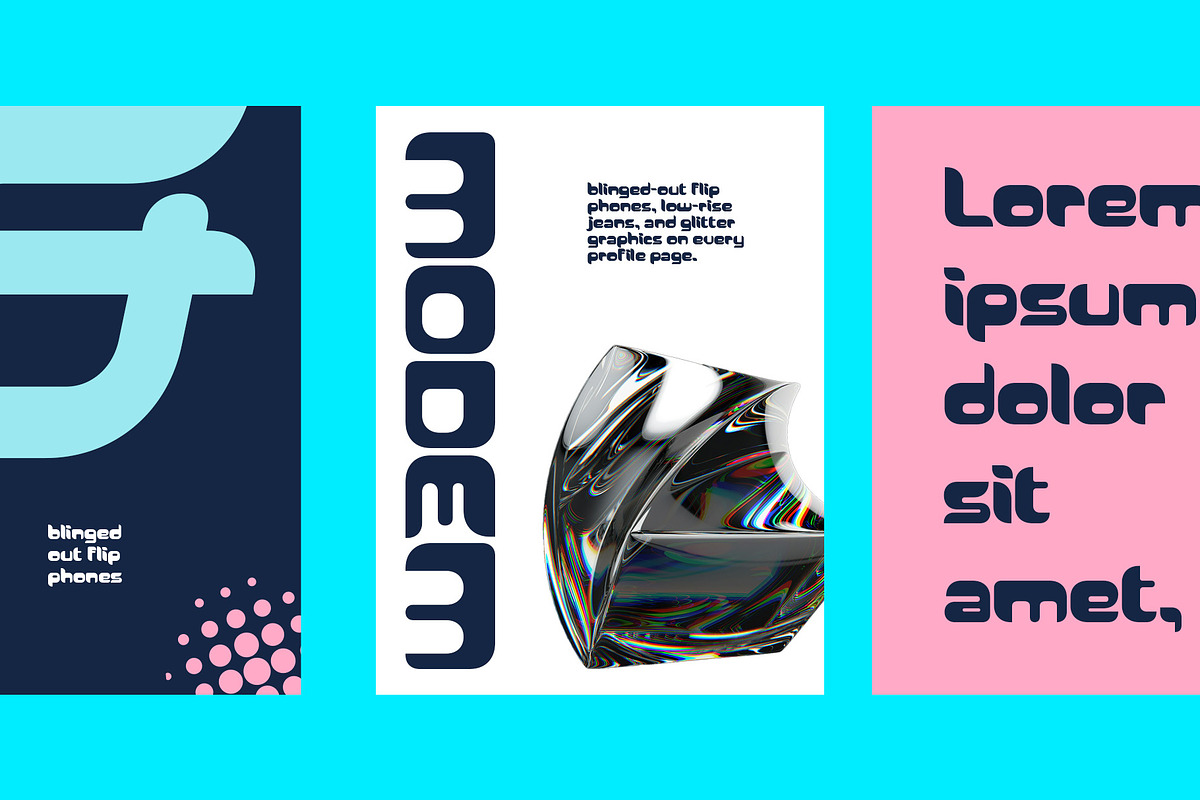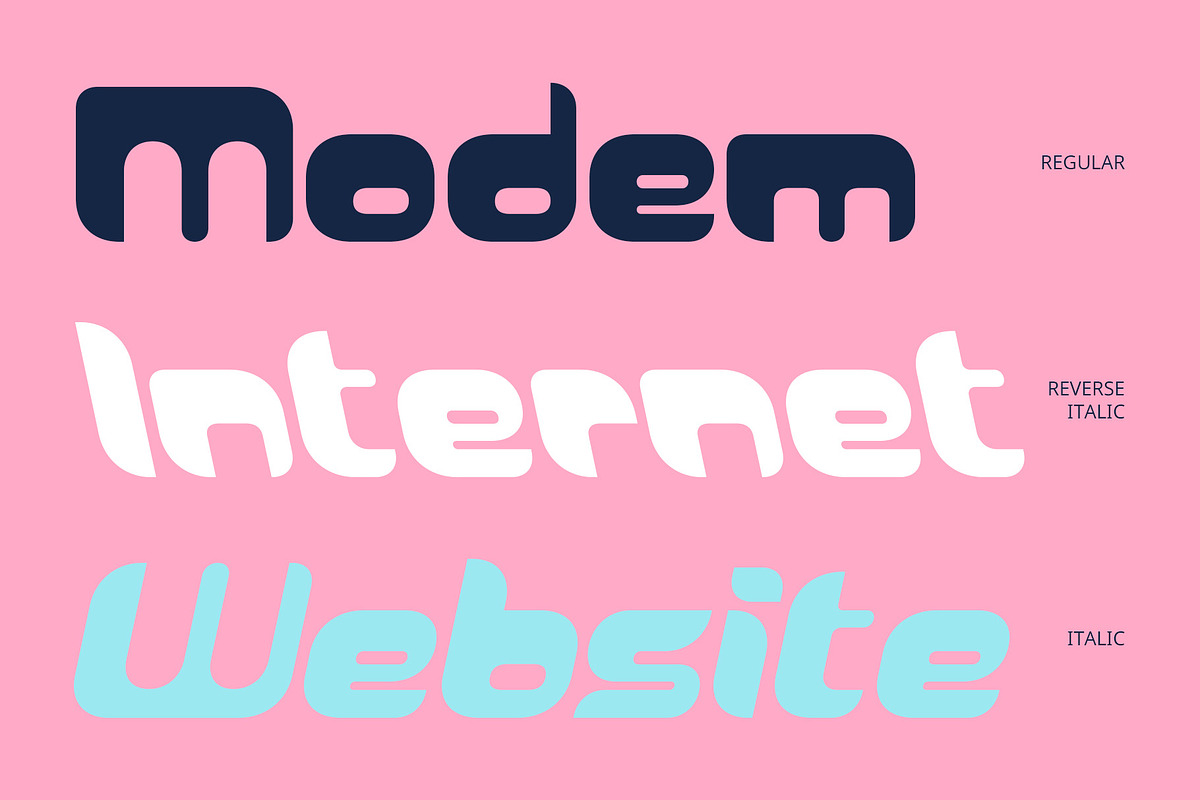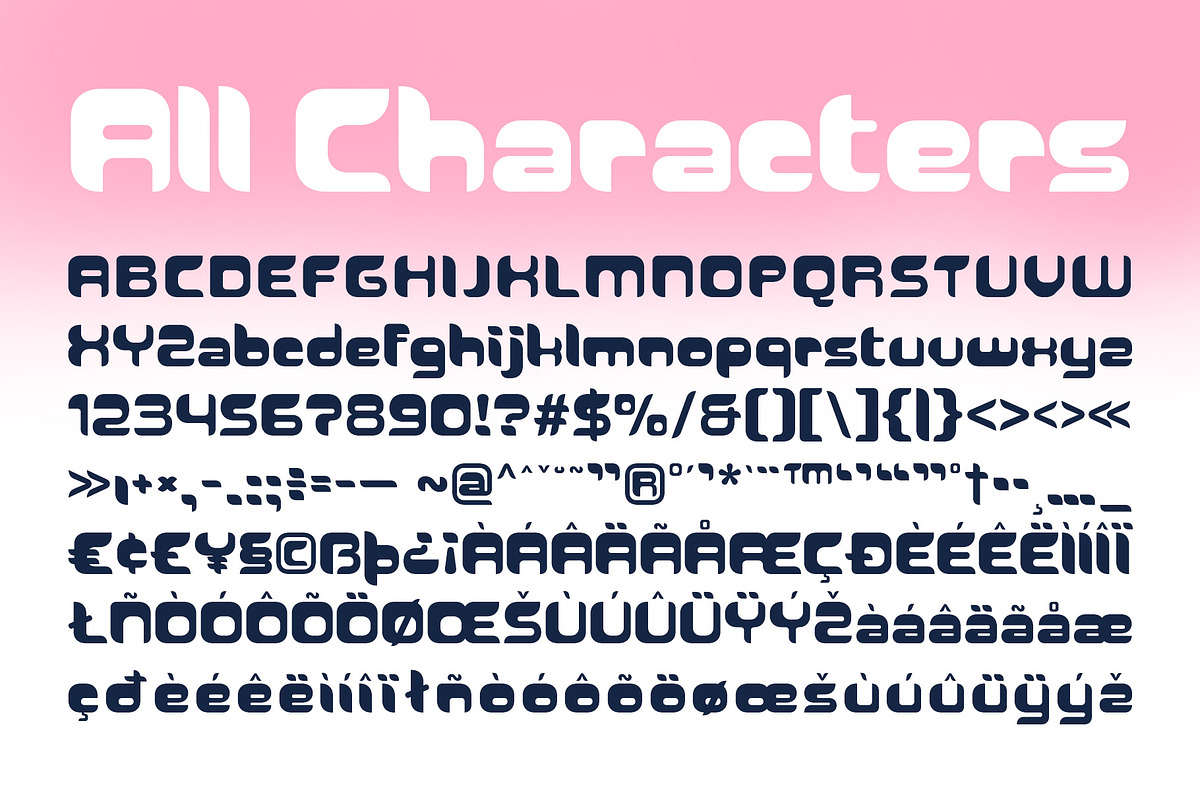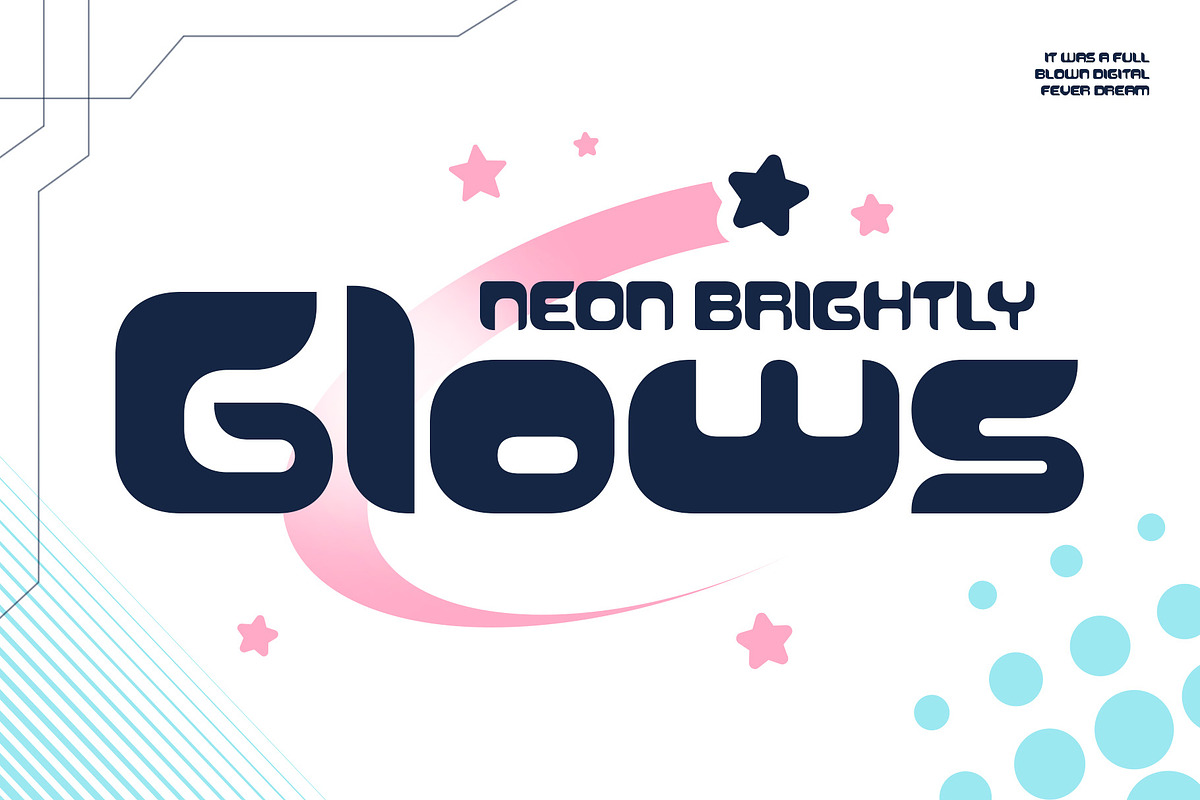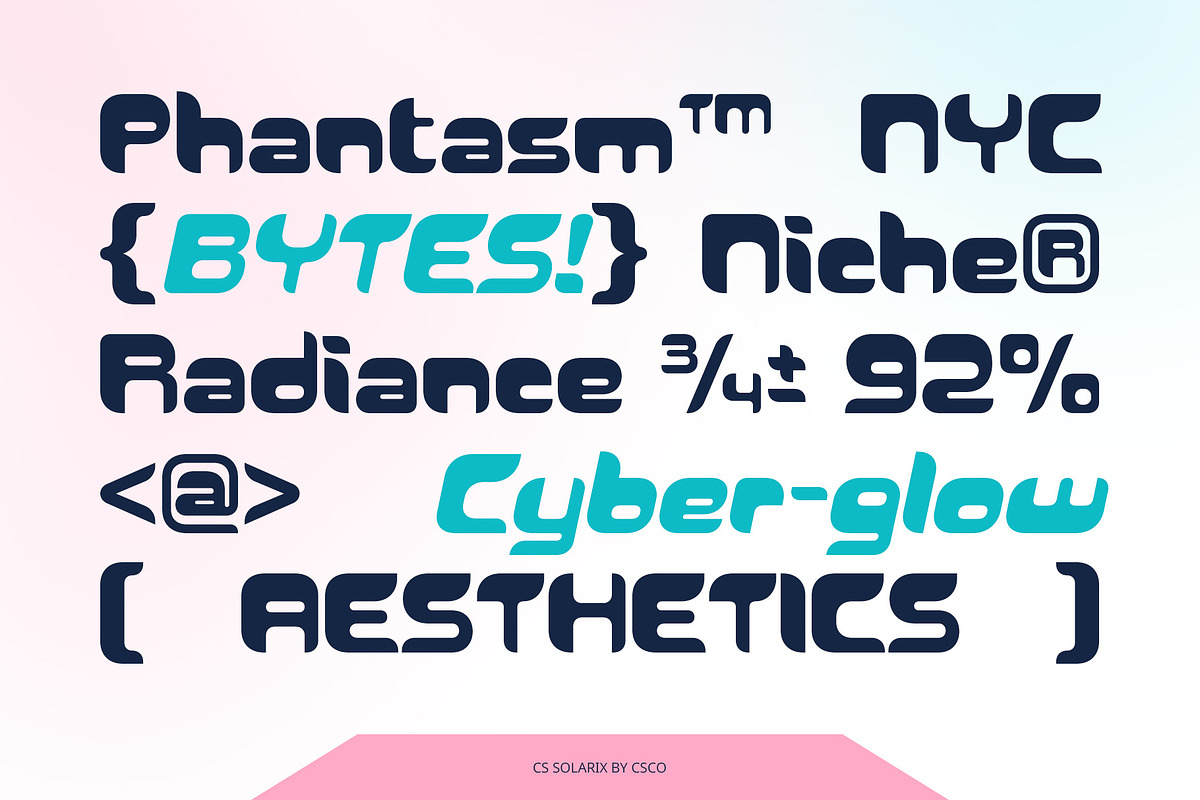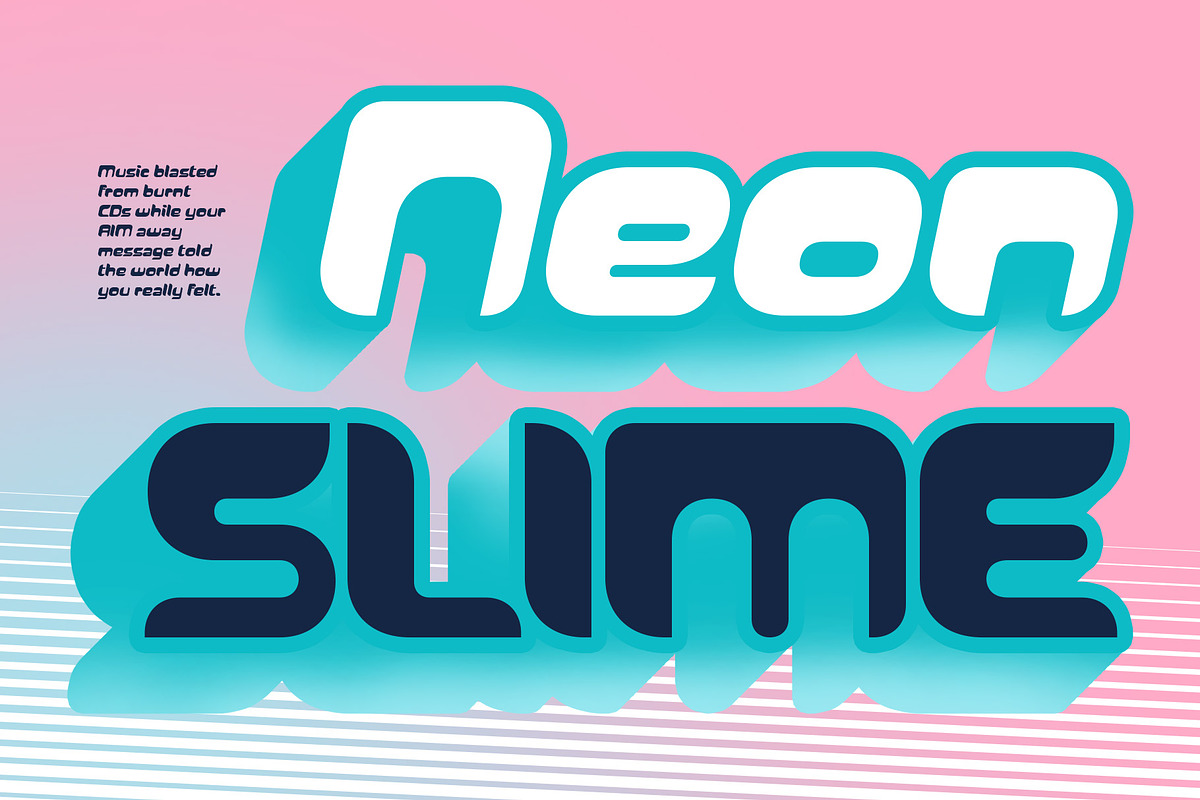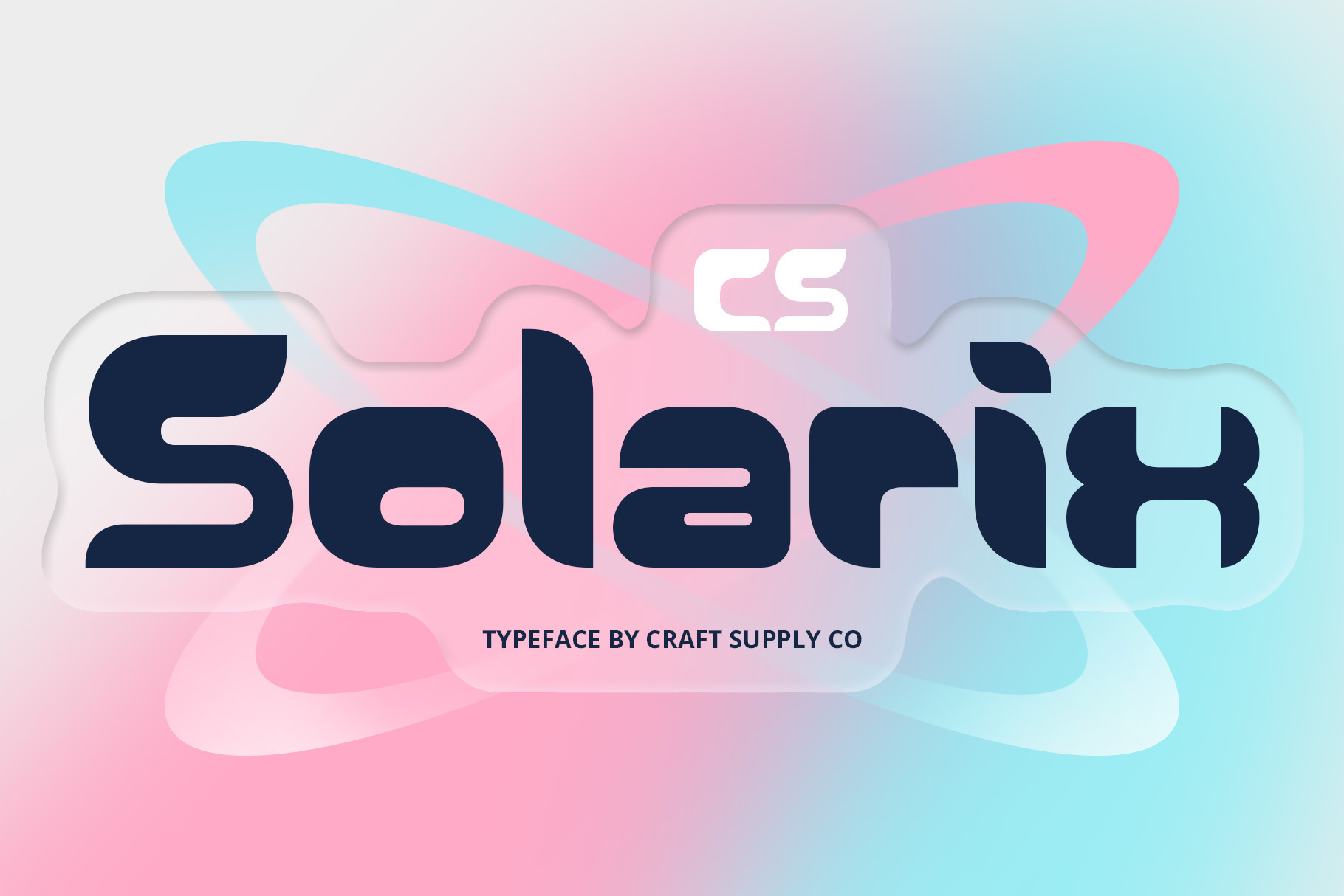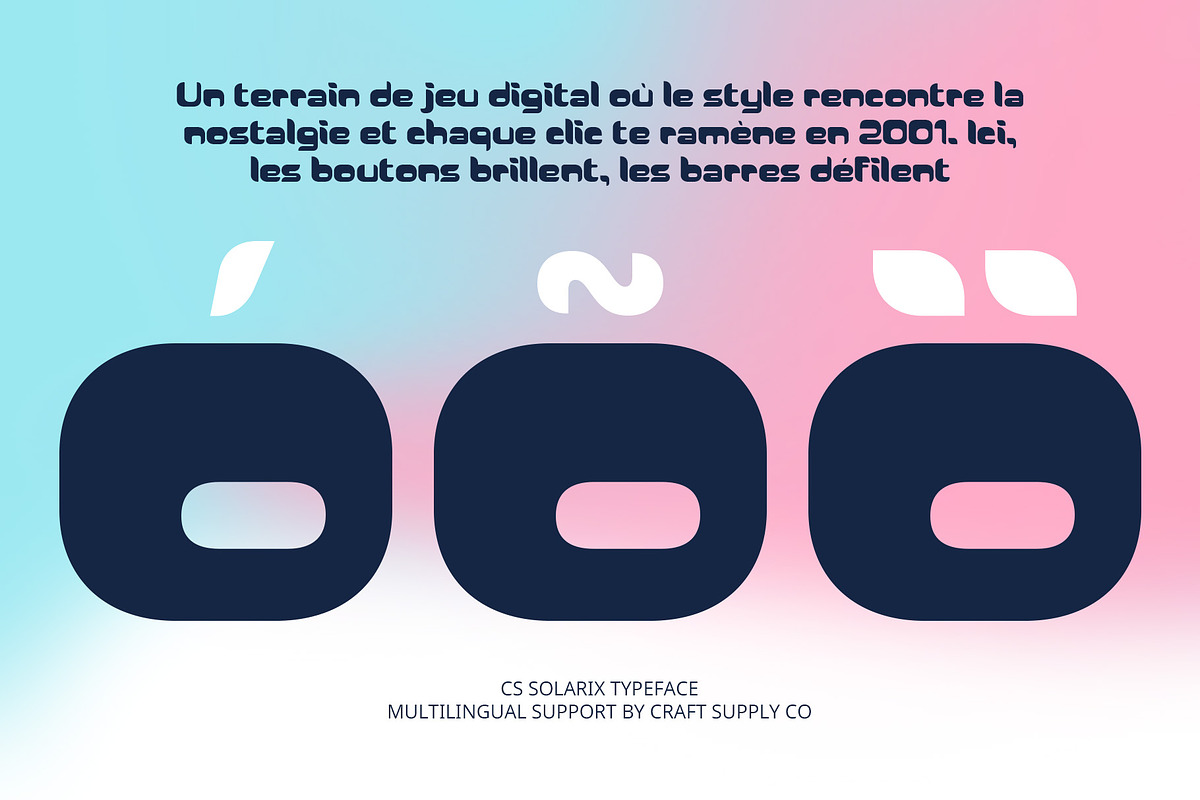
CS Solarix – Futuristic Font
CS Solarix Font – Sleek Minimalism with a Futuristic Edge
Futuristic Design with Innovative Shapes CS Solarix is a modern display font designed for the future. Featuring clean, sleek lines and inventive letterforms, it captures the essence of advanced technology and forward-thinking aesthetics. Its structure blends clarity with innovation, making it a bold visual choice for any cutting-edge project.
Minimalist Meets Dynamic Balancing minimalism with visual energy, CS Solarix showcases a mix of sharp angles and smooth curves. This unique interplay gives the font an elegant yet assertive personality—perfect for modern tech brands, digital platforms, and projects that want to express clarity, speed, and innovation.
Bold Elegance for High-Tech Impact Despite its minimalist roots, CS Solarix offers a bold visual presence. The thoughtful geometry and futuristic styling make it suitable for high-impact headlines, branding systems, or UI design. Its distinctive look speaks of sophistication, progress, and design-forward thinking.
Ideal for Progressive, Tech-Inspired Design Perfect for branding, digital media, editorial layouts, and experimental visuals, CS Solarix brings a modern, forward-moving identity to any design. Whether you’re building a tech brand, launching a digital product, or exploring futuristic themes, this font delivers clarity, style, and distinction.